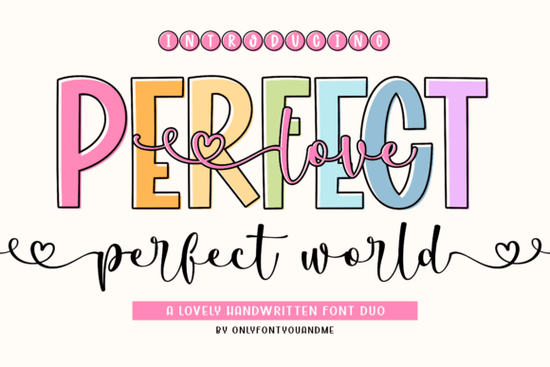
If you've been searching for a romantic typeface that feels both modern and heartfelt, the Perfect Love Perfect World Font is worth a closer look. This font duo pairs a bold, playful sans-serif with a flowing handwritten script, making it a strong choice for wedding invitations, Valentine's Day designs, love-themed projects, and feminine branding. I've spent time exploring this typeface, and here's what you should know before adding it to your collection.
What Comes With This Font Duo?
The package includes two complementary typefaces that work beautifully together or on their own:
- "Perfect Love" – A bold, uppercase sans-serif font in soft pink tones with delicate cursive flourishes and heart-shaped accents. It brings a charming, whimsical energy to headlines and titles.
- "Perfect World" – An elegant, flowing handwritten script that adds a delicate, personal touch to any design. Think of it as the graceful counterpart to the bolder companion.
Together, they create a balanced visual look one font grabs attention, while the other adds warmth and personality. You can check out this romantic font pair directly on the product page for more previews and details.
Where Does This Font Work Best?
Based on its style and personality, here are some practical ways designers and small business owners are using these fonts:
- Wedding stationery – Save-the-dates, RSVP cards, table numbers, and ceremony programs
- Greeting cards – Valentine's Day, anniversaries, love notes, and friendship cards
- Social media graphics – Instagram quotes, Pinterest pins, and story templates with a soft, feminine feel
- Print-on-demand products – Mugs, tote bags, wall art, and apparel with romantic messaging
- Feminine branding – Logo concepts, business cards, and packaging for beauty, fashion, or lifestyle brands
- Scrapbooking and DIY crafts – Digital layouts, journal stickers, and printable planners
The design feels warm and approachable without being overly formal, which makes it versatile enough for both personal and commercial projects.
Is It Easy to Use for Beginners?
The script font does require a bit more care with spacing and sizing, especially at smaller scales. A good tip: always test your script fonts at the actual size you plan to print or display before committing to a final design.
How Does It Compare to Other Romantic Fonts?
There are plenty of romantic script fonts out there, so how does this one stack up? Here's how I'd describe its strengths compared to similar options:
- The bold-plus-script pairing is the real selling point. Many romantic fonts come as a single script, which means you need to find a matching companion yourself. This duo saves you that step.
- The heart accents and flourishes feel natural rather than overdone, which keeps designs looking polished.
- It has a modern yet timeless quality it won't feel dated in a year or two.
Who Should Consider This Font?
This font duo is a solid fit for anyone working on projects where romance, softness, and femininity are part of the visual identity. Specifically:
- Wedding planners and stationery designers who need reliable, good-looking typefaces for client work
- Etsy sellers creating printable wall art, cards, or invitation templates
- Print-on-demand entrepreneurs who want fresh, eye-catching typography for their product lines
- Crafters who use fonts with Cricut or Silhouette machines for DIY projects
- Small business owners in beauty, wellness, or lifestyle spaces building a brand with a softer tone
It also works well for Creative Market font bundles if you're a designer curating collections for sale.